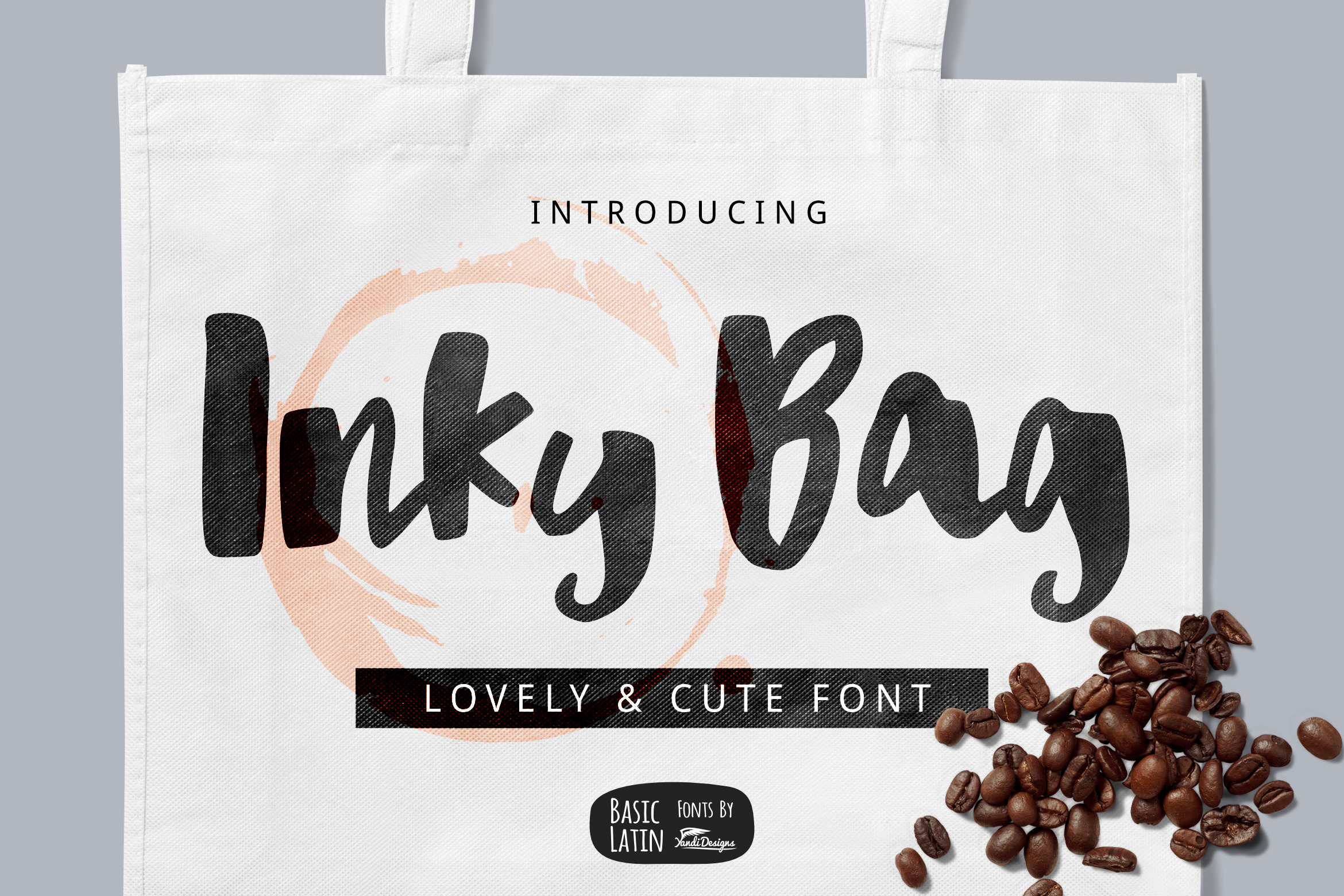
Inky Bag Brush Font
Inky Bag Font
Simple artistic multipurpose big brush font , suitable for many project children book, quotes, logo , heading , title etc.
Basic Latin (Standard English character , number, symbol)